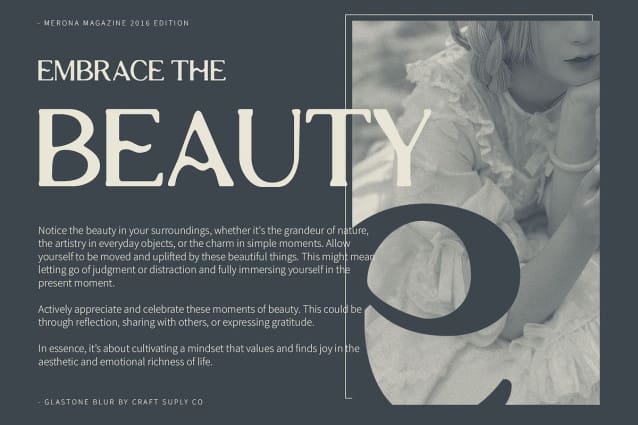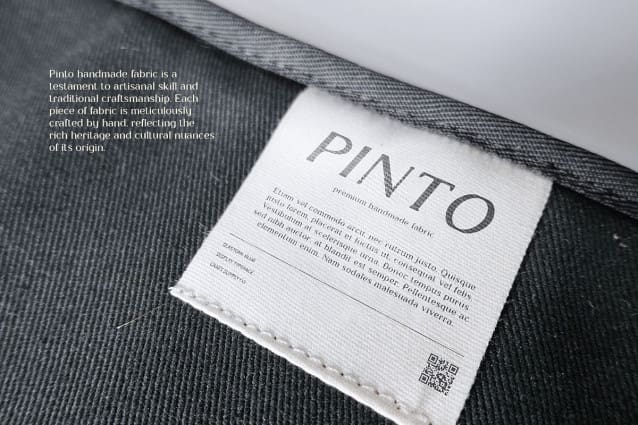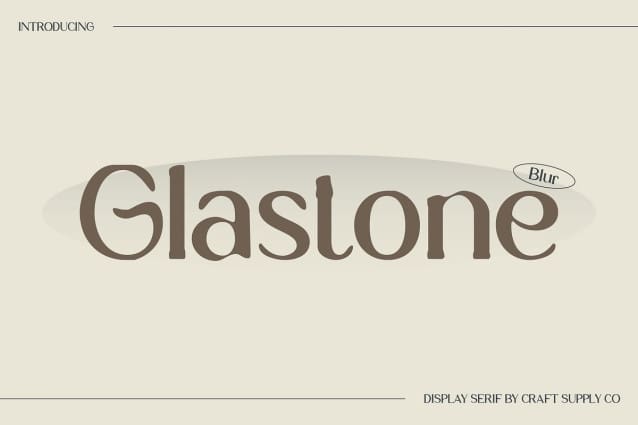
Glastone Blur Font
Glastone Blur Font is a modern serif font that seamlessly combines elegance with a touch of luxury. Its contemporary serif style is enhanced by a subtle blur effect, creating a soft and sophisticated appearance. This unique design element adds a refined and classy look, perfect for high-end and stylish projects.
Sophisticated and Classy Aesthetic The blur effect in Glastone Blur introduces a gentle, elegant haze that enriches the font’s modern serif design. This sophisticated touch adds depth and character to your text, making it ideal for designs that aim to convey both modernity and a sense of luxury.
Perfect for High-End and Stylish Projects Whether used in branding, editorial layouts, or luxury marketing materials, Glastone Blur excels in delivering a modern, sophisticated vibe. Its blend of contemporary serif design and soft blur effect ensures a high-class visual impact that enhances any project requiring a touch of elegance.
Versatile for Elegant and Modern Designs Glastone Blur’s elegant and luxurious style makes it versatile for various design applications. From upscale branding to refined promotional materials, this font provides a graceful and sophisticated look that elevates the overall aesthetic of your projects.